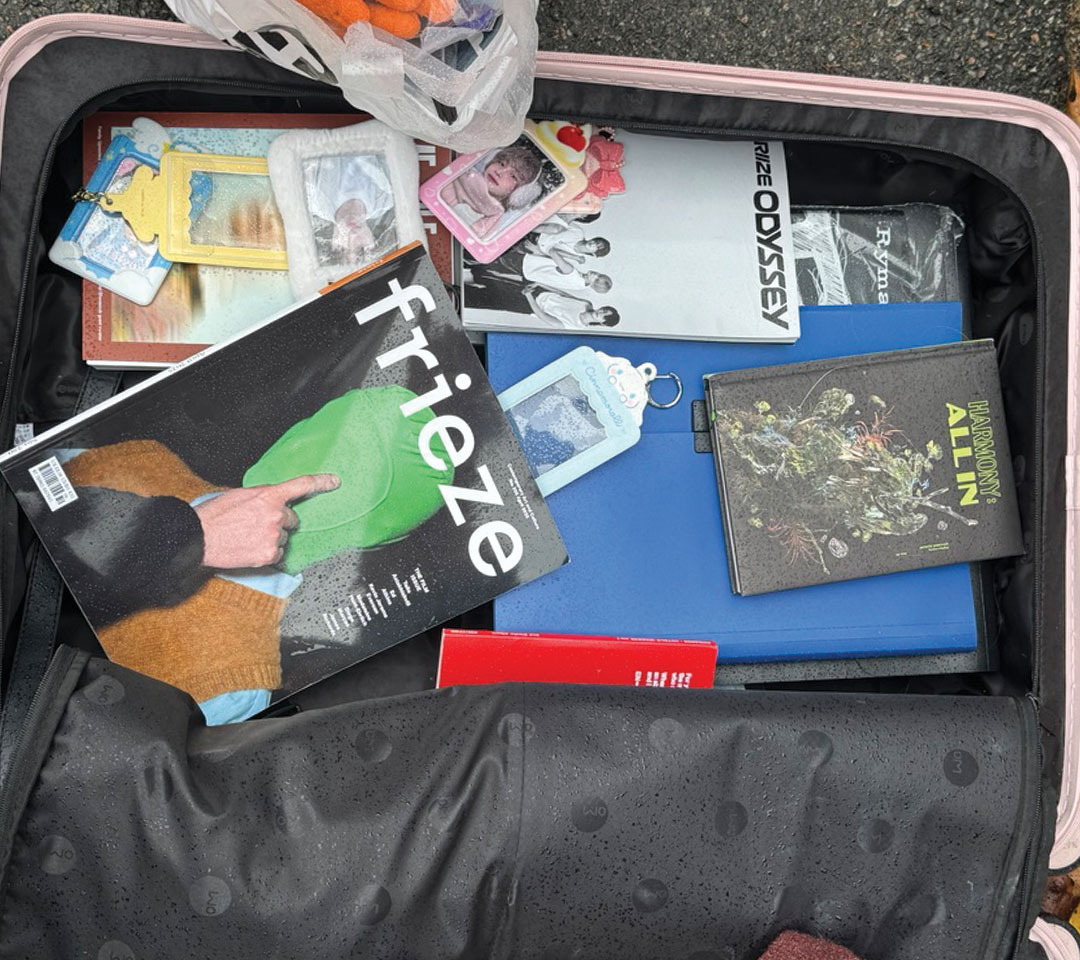
My typeface 'Vendor' is inspired by Peckham Car boot. It is inspired by the transportation and unboxing, a key element to the cycle of purchasing. When visiting Harris academy on a Sunday, I was initially drawn to the stall displays, stacks of boxes and hangers each positioned to showcase their items and draw in customers. I tried out various angles of a boxed cube, grid in which my 'taped' typeface would wrap around. I repeated a jagged taped feature, perspectives serifs and angles, giving it cohesion. My kerning is tight allowing the letters to fit together like pieces. Resulting in a uniform, contained and geometric appearance.